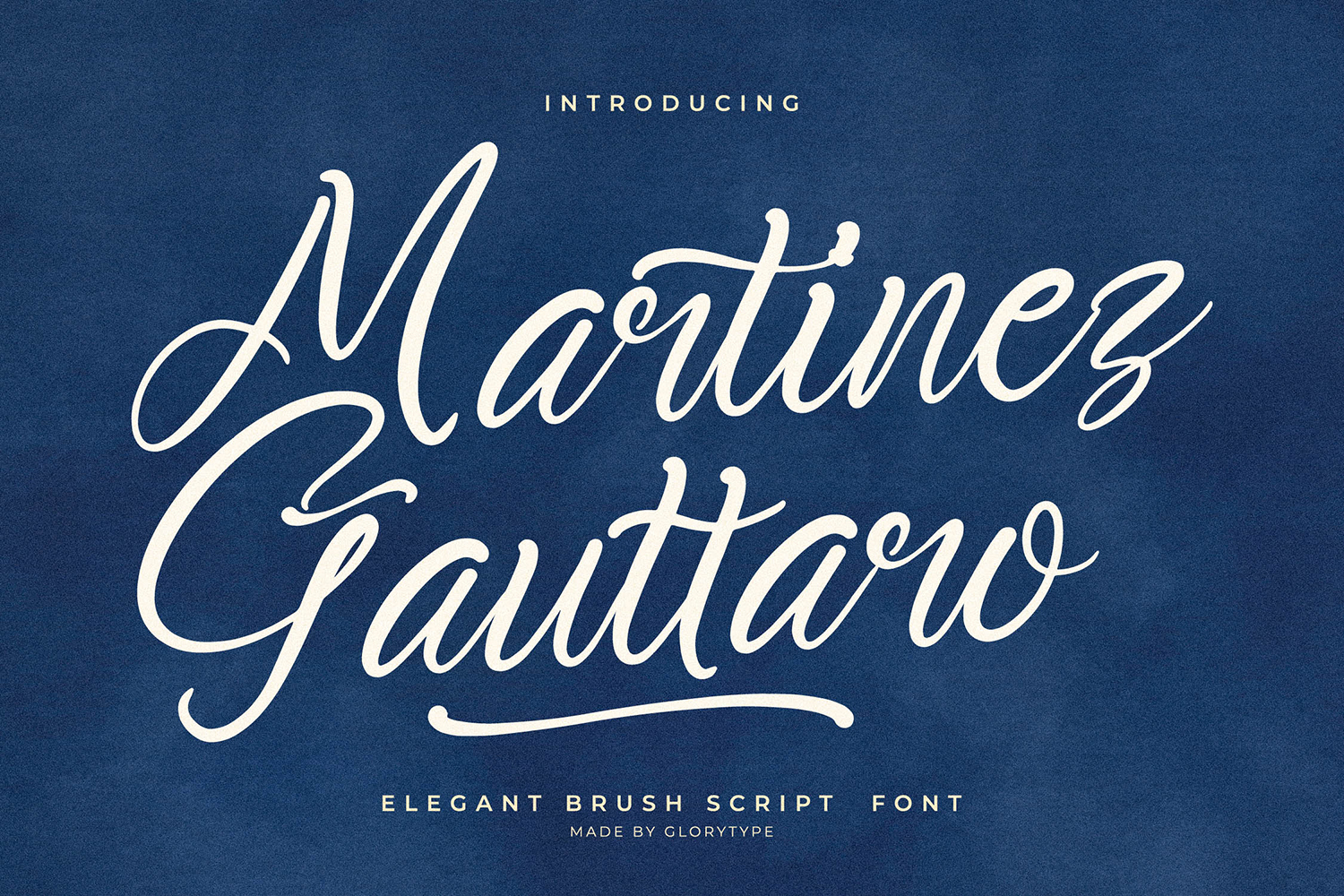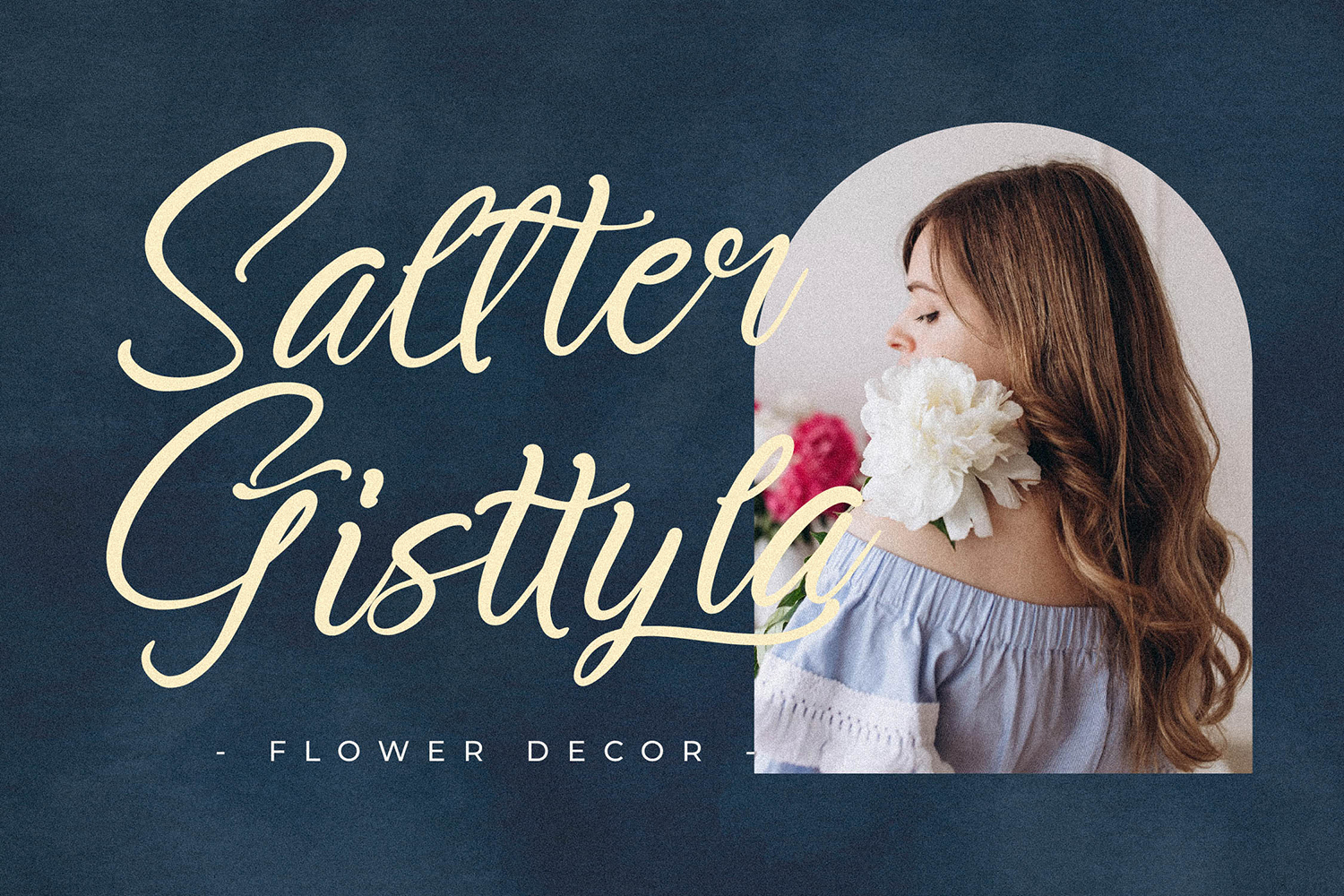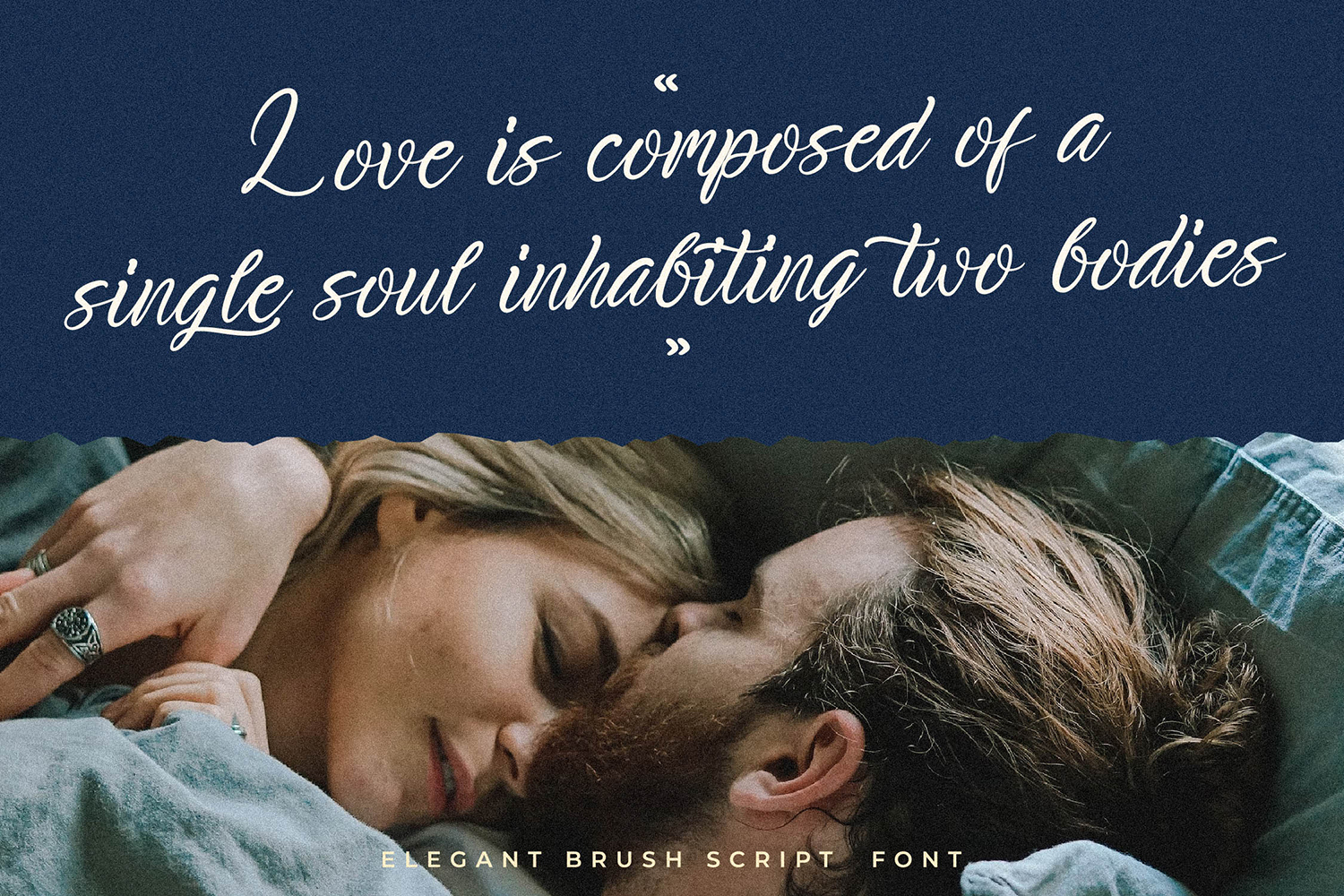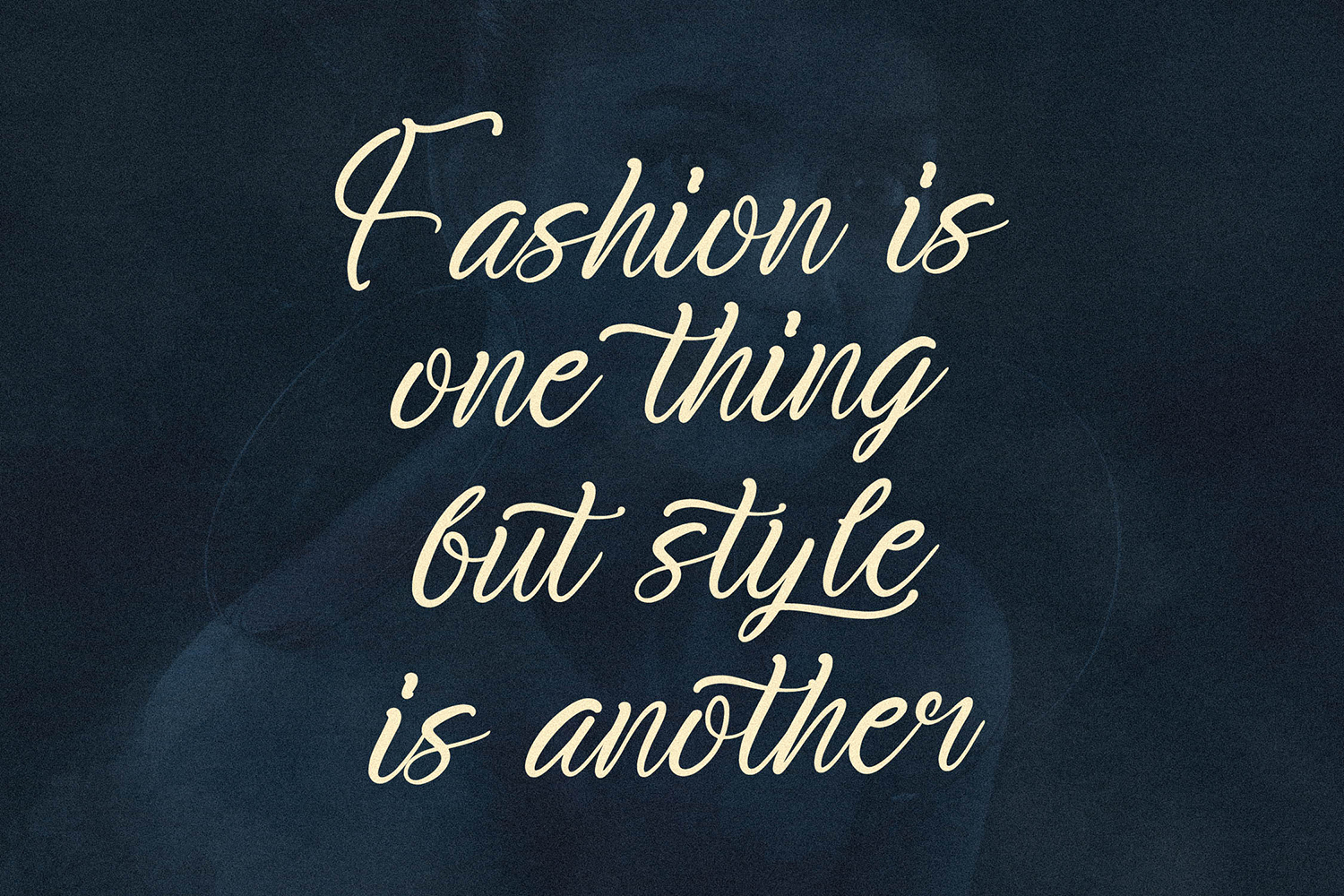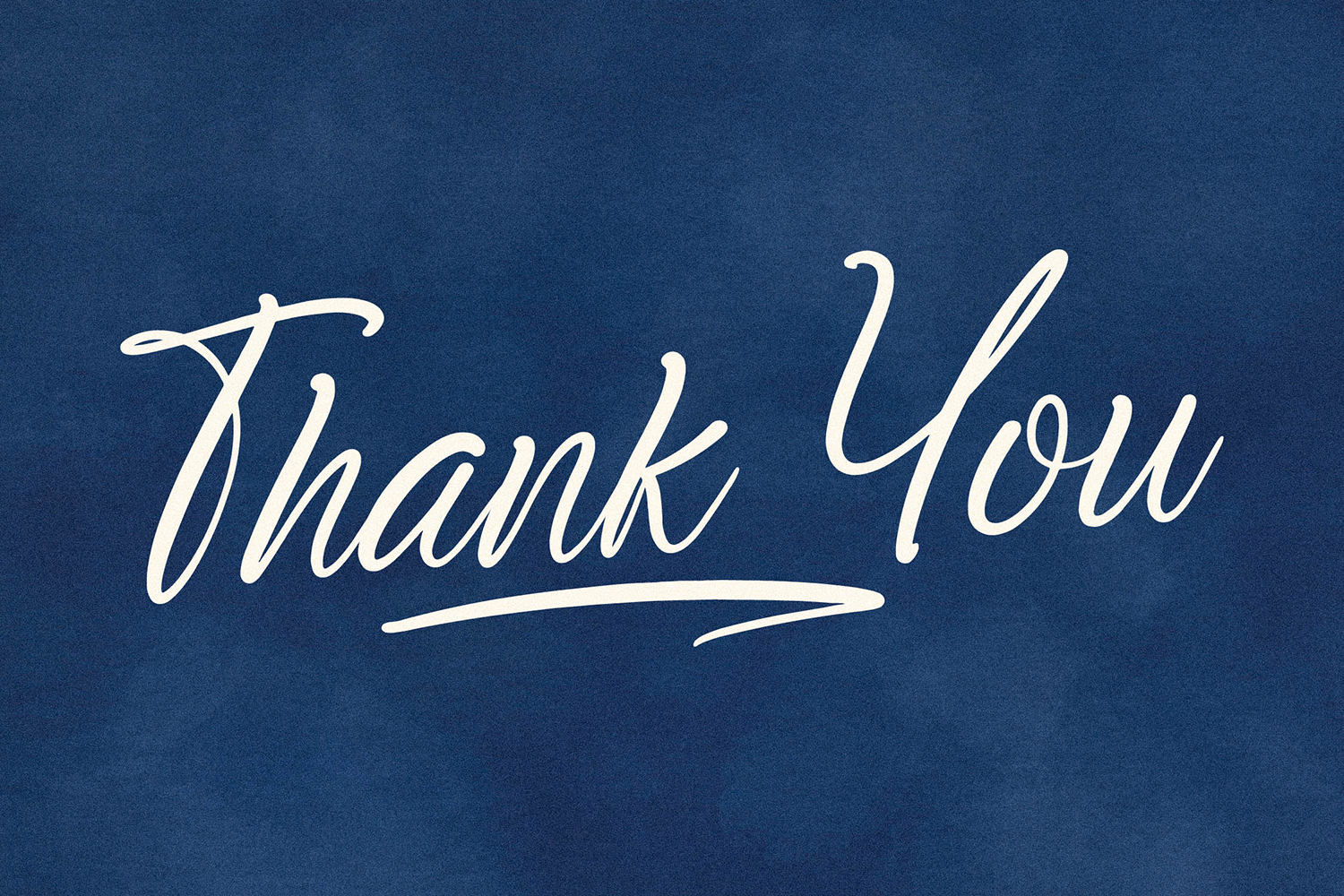
Martinez Gauttaro Free Font
Introducing Martinez Gauttaro Free Font -is an elegant brush script font for all your projects. Indulge in the sophistication of Martinez Gauttaro, a captivating brush script font designed to elevate your creative endeavors. This font is perfect for a wide range of projects, including logos, branding, homeware designs, product packaging, mugs, quotes, posters, shopping bags, t-shirts, book covers, name cards, invitation cards, greeting cards, labels, photography, watermarks, special events, and more. Embrace the beautiful script taste of Martinez Gauttaro and infuse elegance into all your lovely projects.This free typeface was designed by a talented Glorytype Studio. If you like it don’t forget to check out the full version.